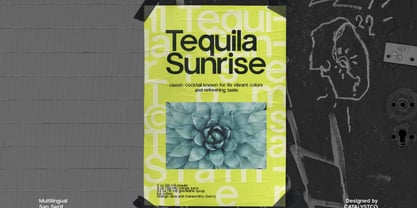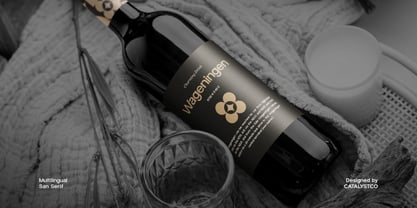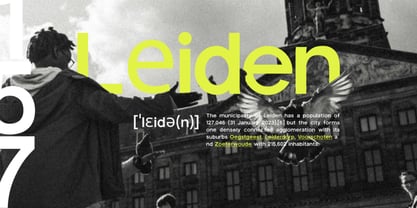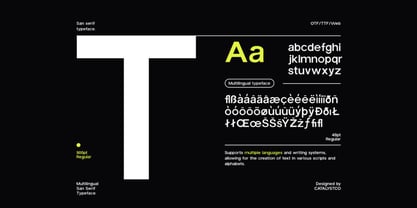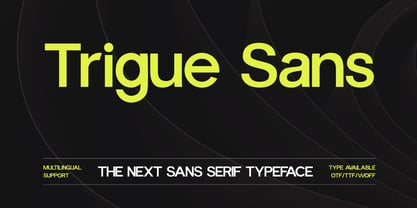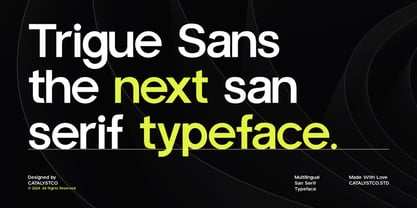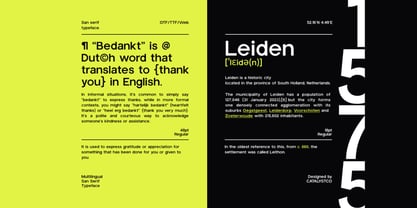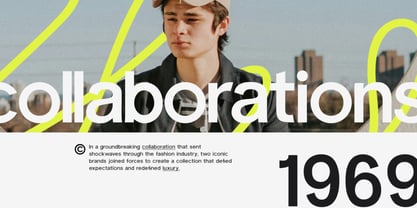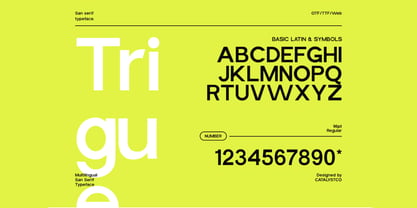
Trigue Sans
Trigue Sans is a modern multilingual sans serif typeface crafted for clarity, impact, and contemporary branding. Designed with clean geometric construction, balanced proportions, and smooth stroke transitions, this typeface delivers a strong visual presence while maintaining excellent readability across digital and print platforms. Trigue Sans is highly relevant for corporate identity systems, tech startups, SaaS platforms, UI/UX design, mobile apps, website headers, editorial layouts, and modern marketing materials. Its clean and structured appearance ensures clarity and professionalism, making it ideal for brands that aim to communicate innovation, precision, and global accessibility.